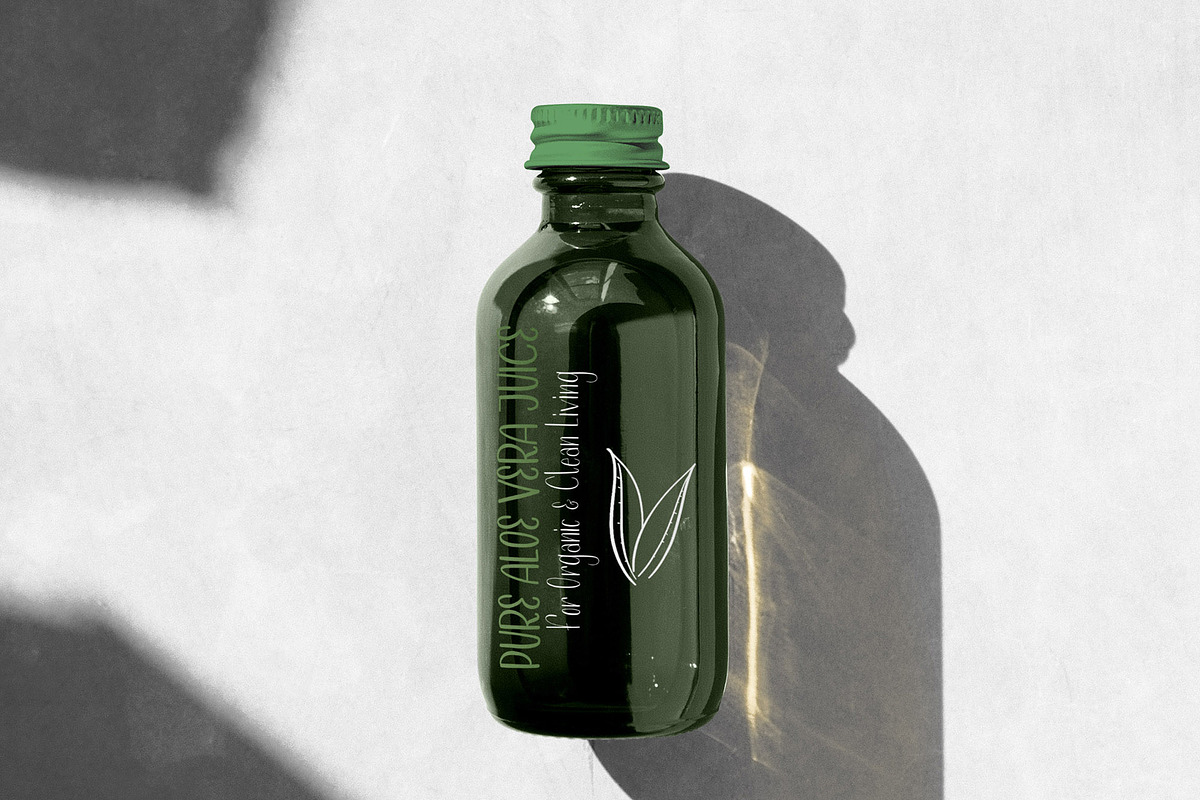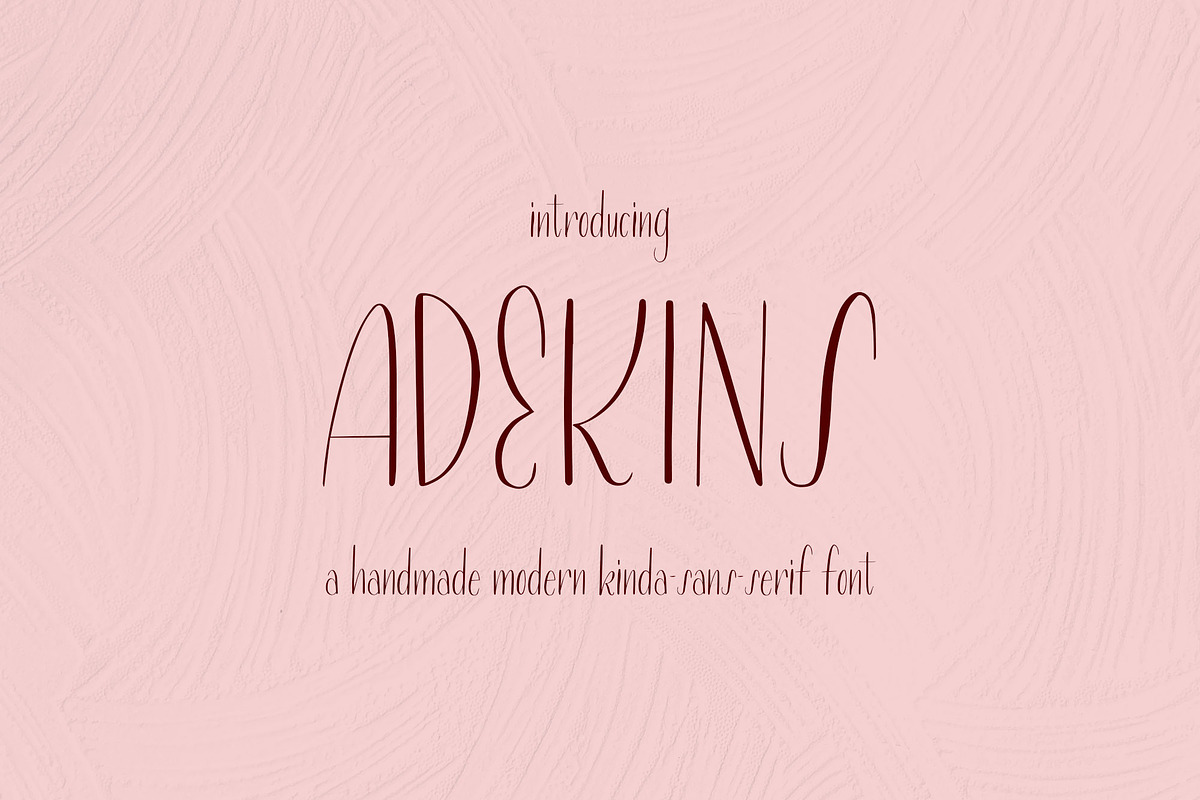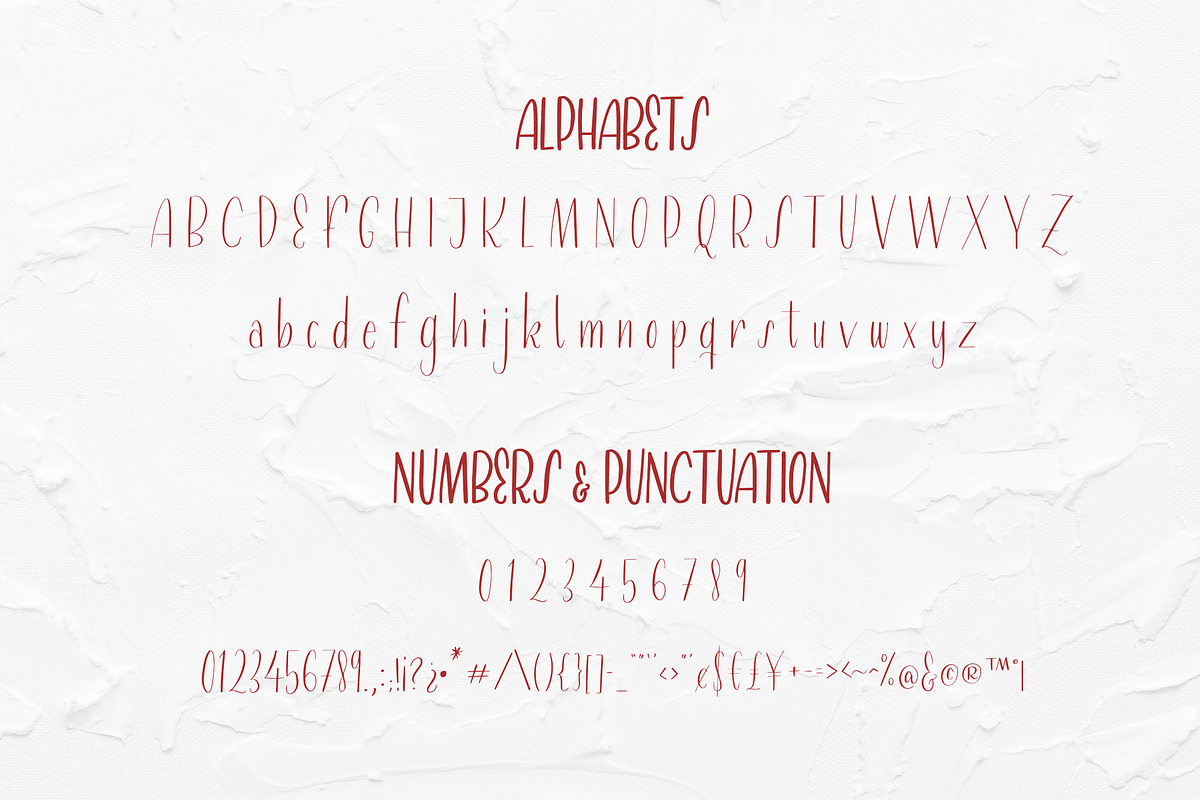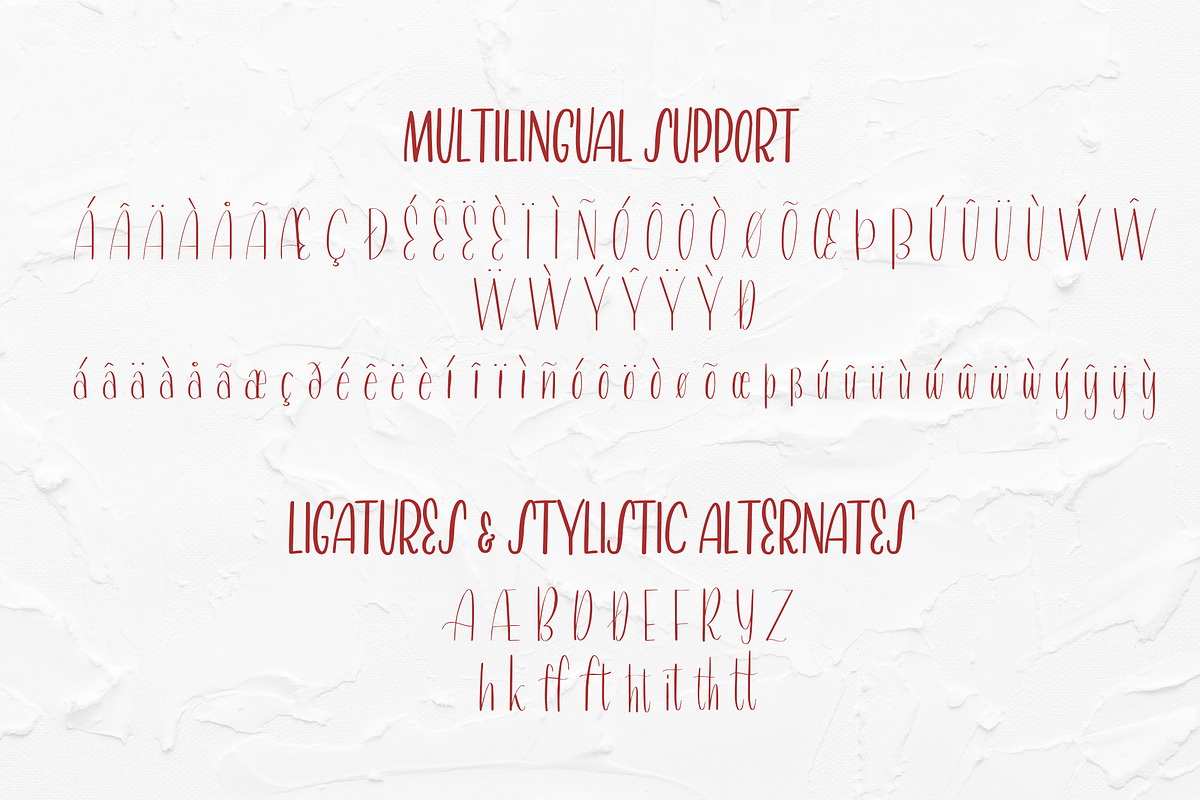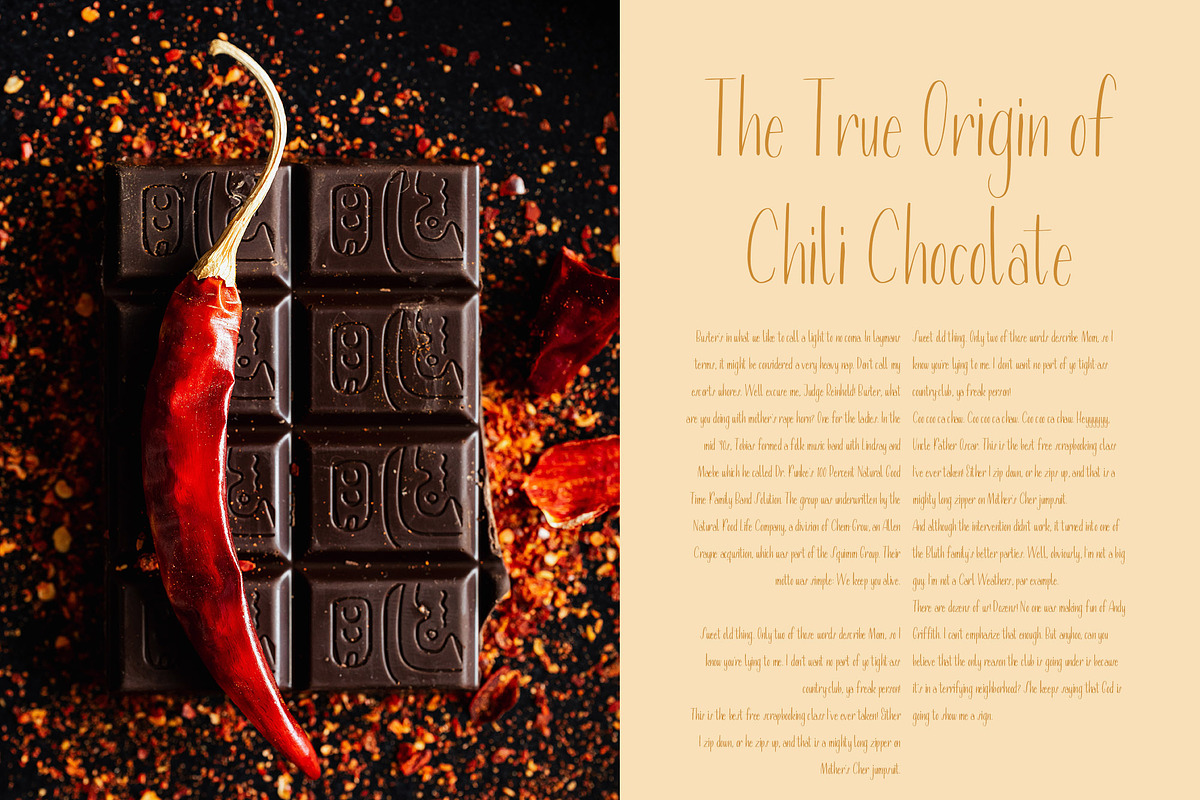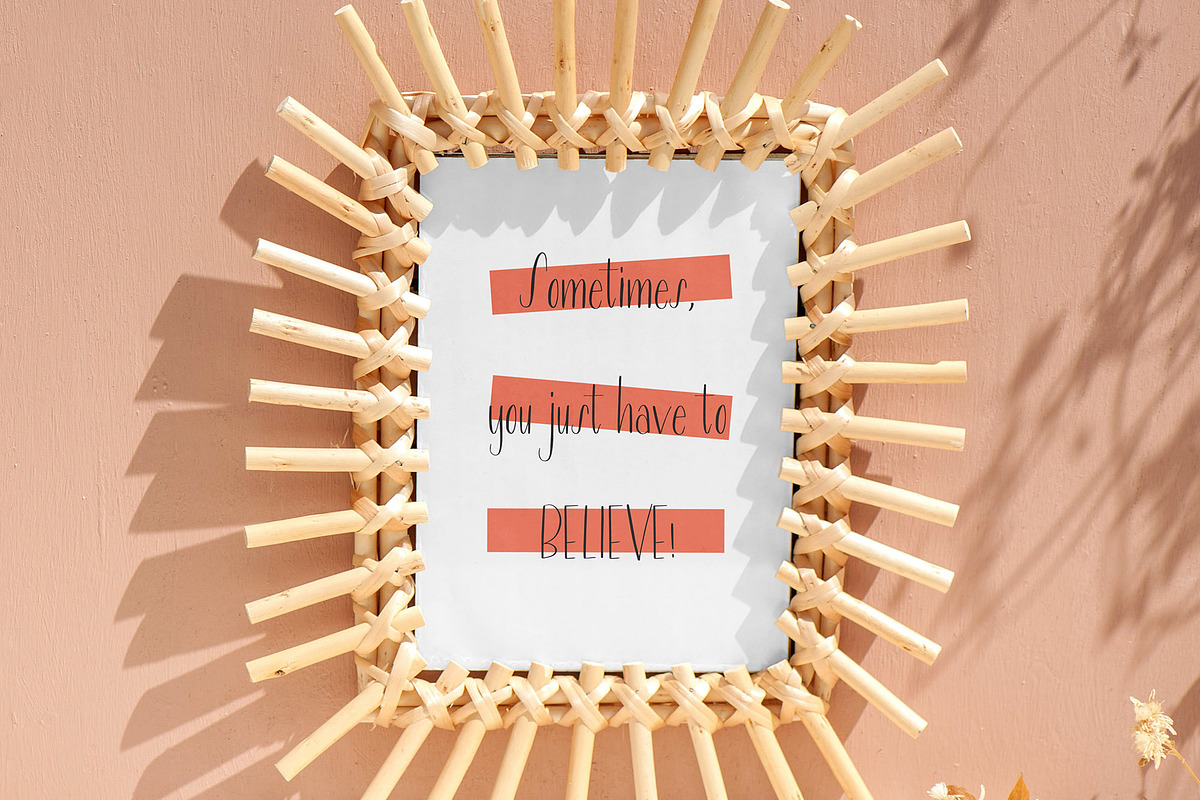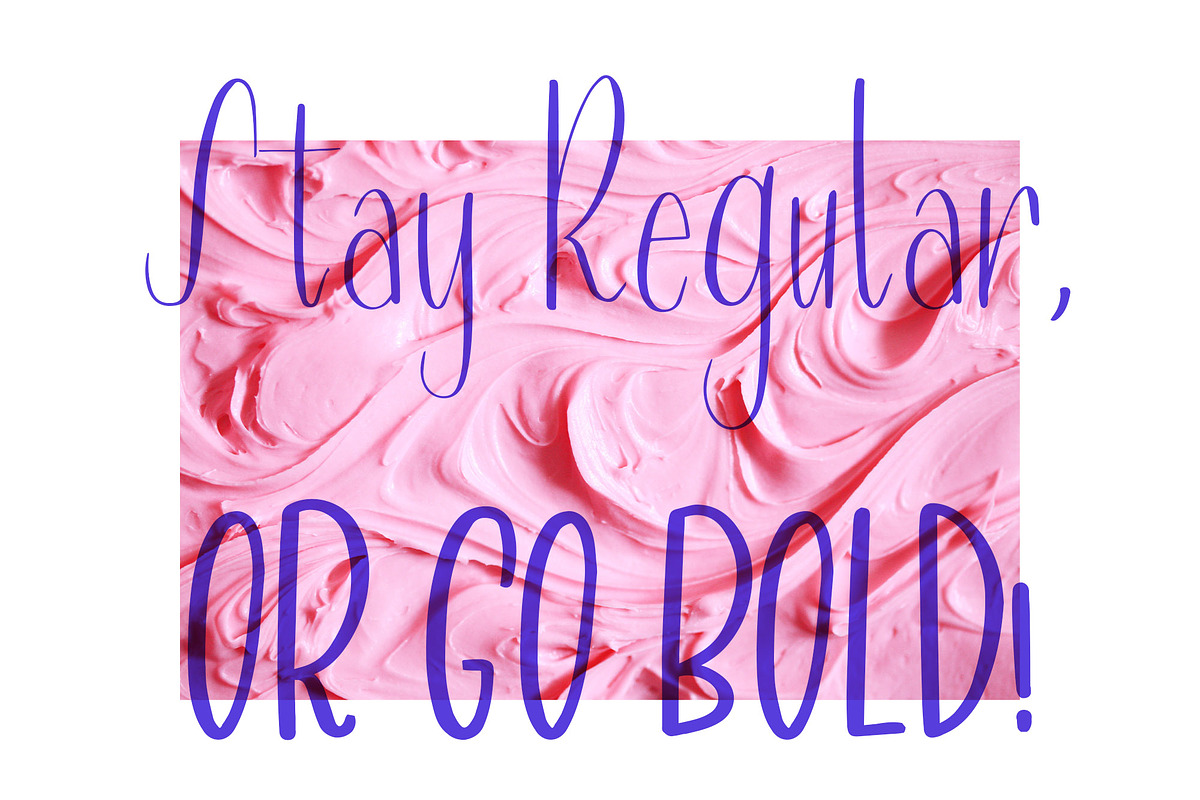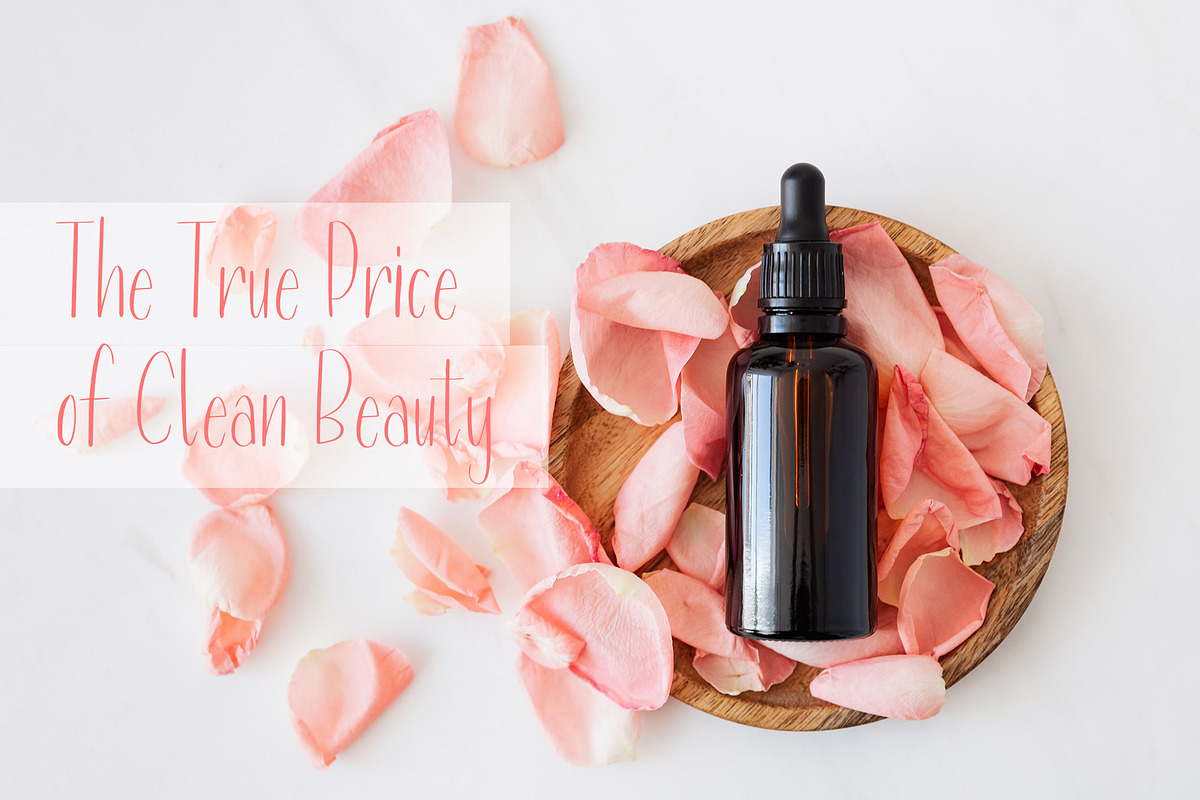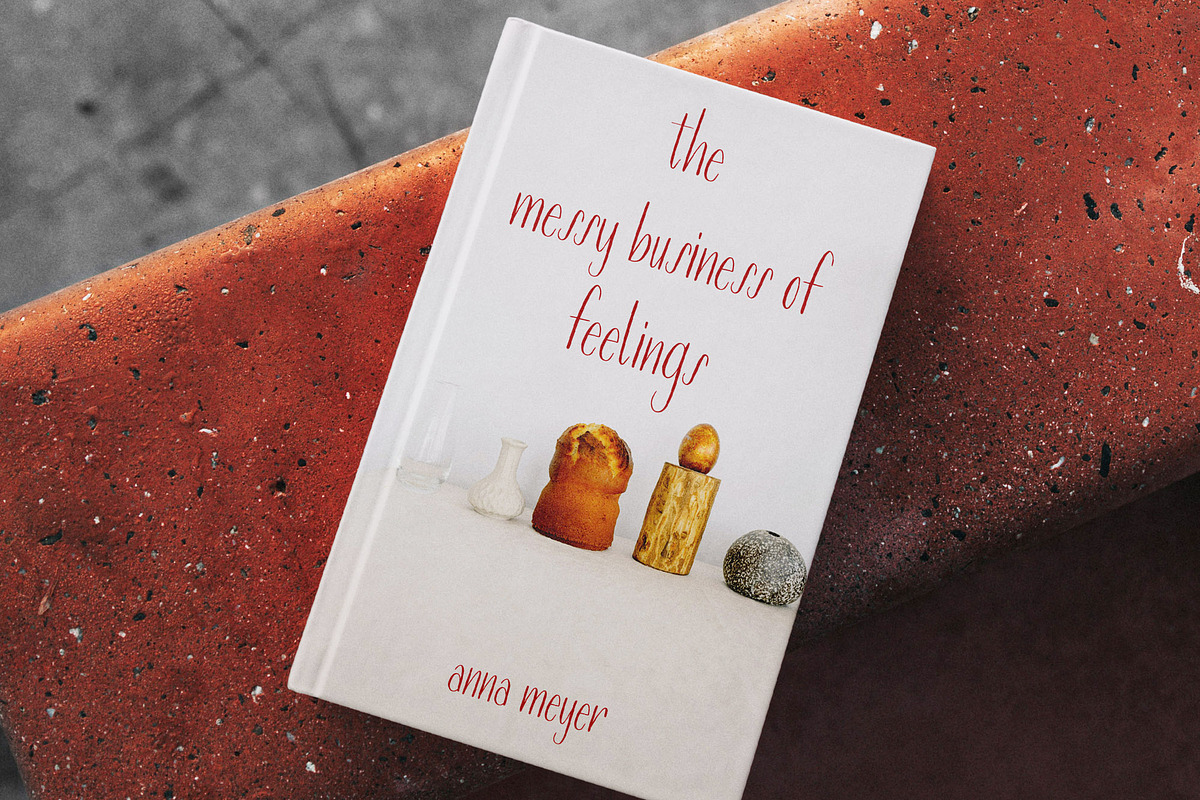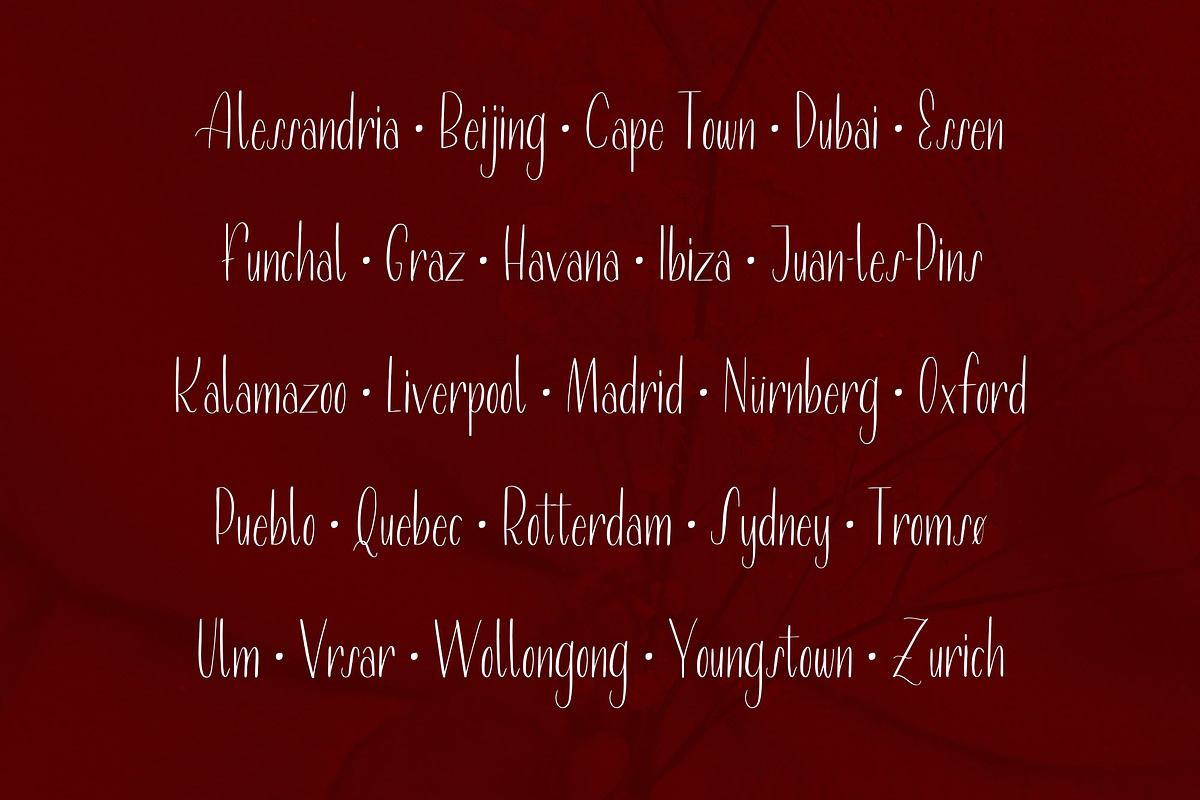
Adekins Modern Hand Drawn Font
Adekins is a hand-drawn modern font that is great for editorial design, books, logos, posters, websites, products, or any design that requires a clean, minimal, and modern look. This font comes in regular and bold, so you can switch between both to elevate your design.